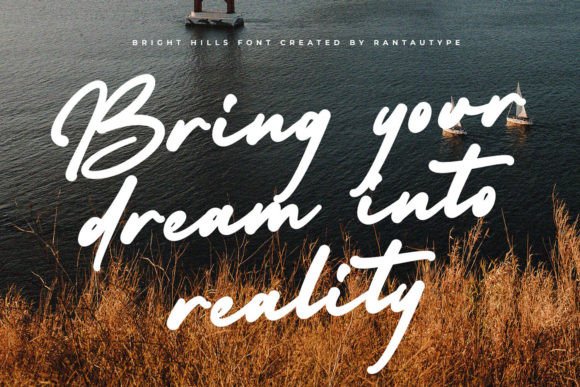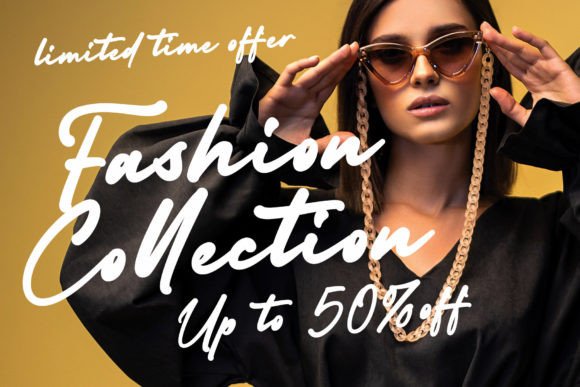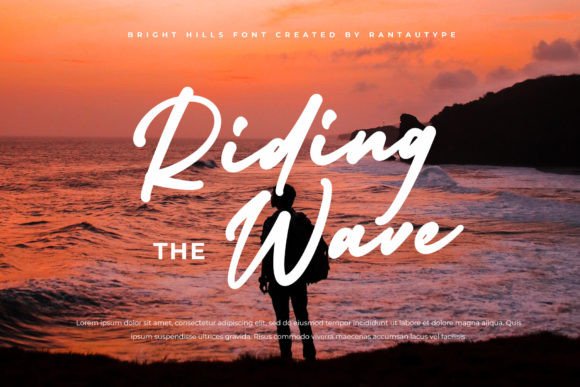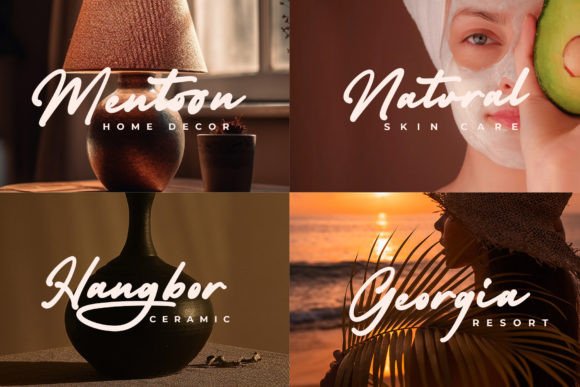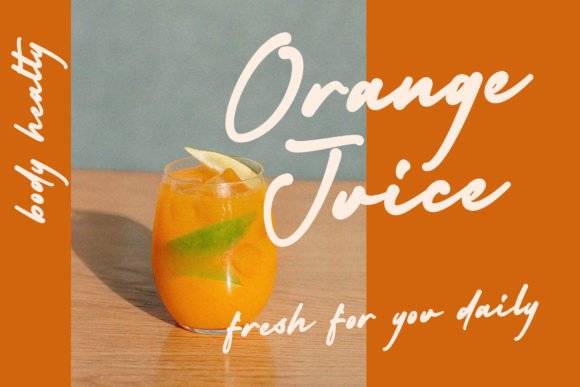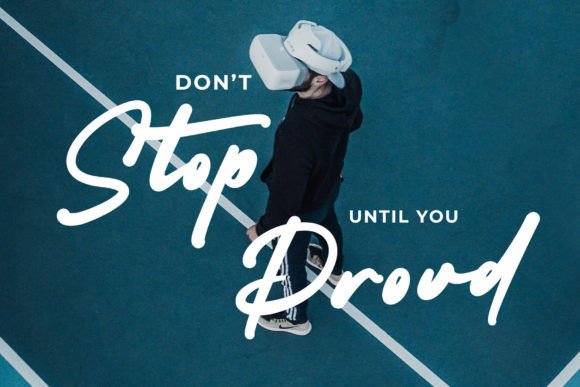
The Perfect Blend of Elegance and Sophistication: Bright Hills Font
There’s something special about discovering a font that perfectly captures the essence of a project. It’s the moment when words come alive, and your design takes on a life of its own. For many designers, this moment is a defining experience that sets their work apart. And for those seeking to elevate their designs, the Bright Hills Font is sure to be a game-changer.
Bright Hills Font is a modern style font that exudes professionalism, making it an excellent choice for a wide range of design projects. From watermarks on stunning photography to branding, wedding events, and signature logo designs, this font is versatile and adaptable. Its unique blend of elegance and sophistication makes it a valuable asset for designers looking to add a touch of class to their work.
Bright Hills Font Key Features
- Unique Characteristics: Bright Hills Font features a distinctive, hand-crafted look with subtle irregularities and texture, giving it a unique and personalized feel.
Bright Hills Font Review
Overall, I’d say the Bright Hills Font has its charm, but it’s not without its quirks. ✨ Let’s start with the good stuff:
- The font’s unique blend of modern and rustic elements makes it perfect for creating eye-catching headings and titles.
- The bold weights are particularly well-done, adding a sense of depth and dimensionality to text.
- The font’s versatility makes it suitable for a wide range of design applications, from branding to packaging to digital interfaces.
- The font’s readability can be a bit of a concern, particularly at smaller sizes or in certain contexts.
- The font’s irregularities can make it difficult to use in situations where consistency and precision are crucial.
Overall, I’d recommend the Bright Hills Font for designers who are looking to add a touch of whimsy and personality to their work. While it may not be the best choice for every project, it’s certainly worth considering for those that require a unique and attention-grabbing font.
Tips for Getting the Most Out of Bright Hills Font
For optimal results, use Bright Hills Font for titles, headings, and body text in designs that require a modern, elegant look. Experiment with different font sizes, colors, and styles to find the perfect combination for your project.
Bright Hills Font is suitable for various design projects, including:
– Brochures and flyers
– Business cards and stationery
– Websites and landing pages
– Social media graphics and advertisements